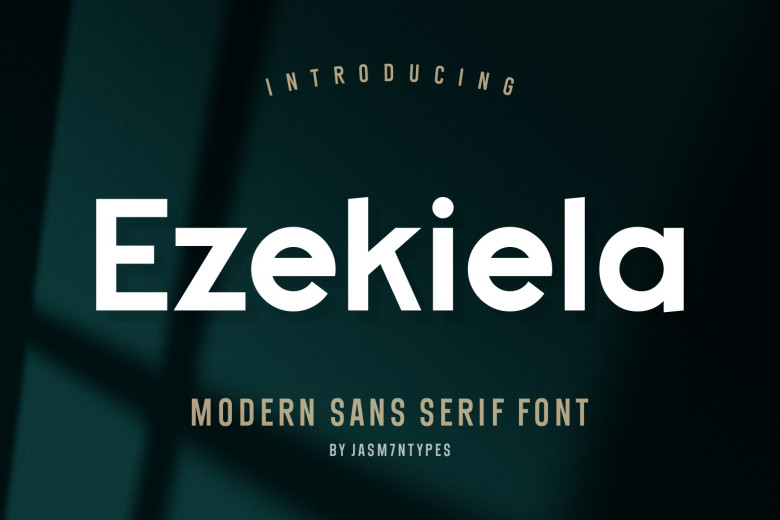
Ezekiela Font
Ezekiela is an elegant sans-serif typeface with a contemporary and chic appearance, featuring minimalist designs to give any design an eye-catching, sleek aesthetic. Ideal for everything from striking titles to body text readability. Enhance your design using Ezekiela for a contemporary and distinctive touch!
Ezekiela Sans Serif Font